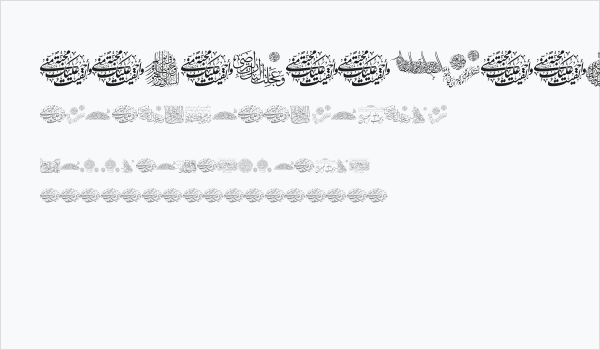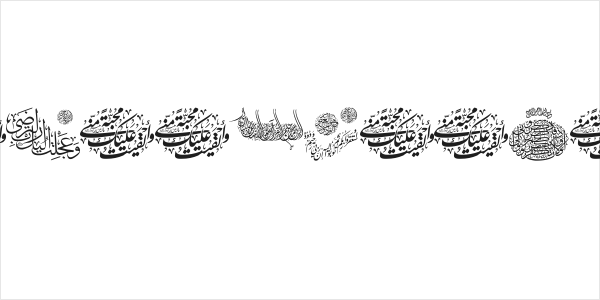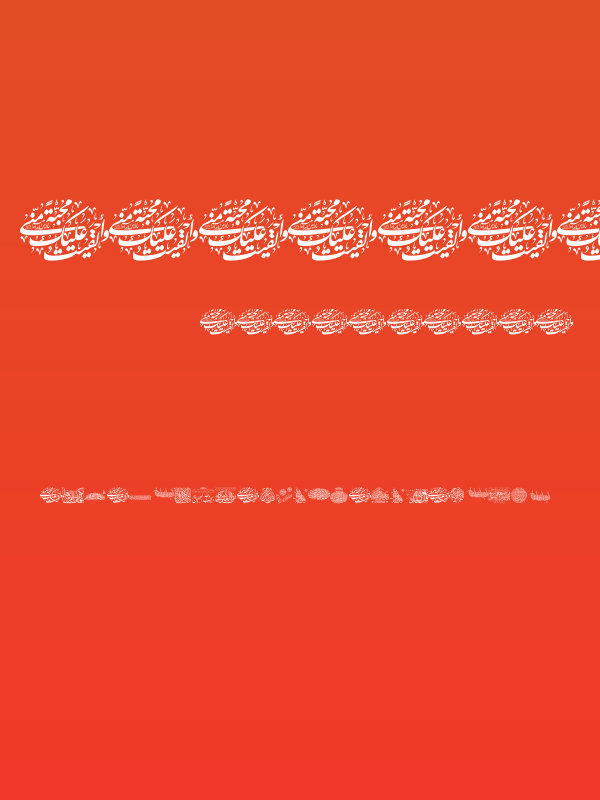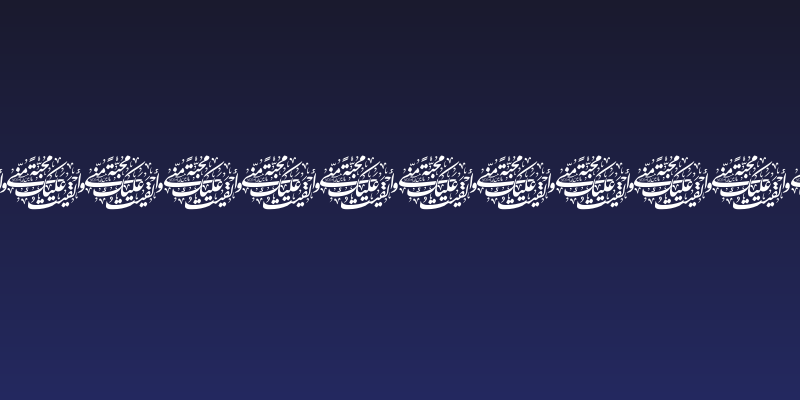
Aayat Quraan_044 Font
Aayat Quraan_044 Description
Highly decorative Arabic calligraphic script featuring intricate, circular motifs and dense, ornamental flourishes. The glyphs are artistically arranged, with strong contrast between thick and thin strokes, and the overall appearance is complex and visually rich.
| Overall Style | Decorative, Traditional, Ornate |
| Use Case | Religious headings, Art pieces, Borders, Certificates |
| Proposed Projects | Religious texts, ceremonial documents, Islamic art, decorative borders, certificates. |